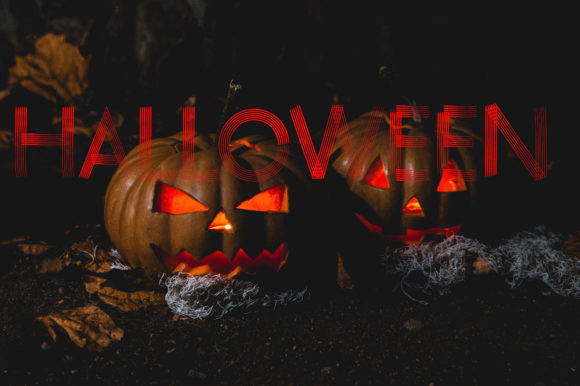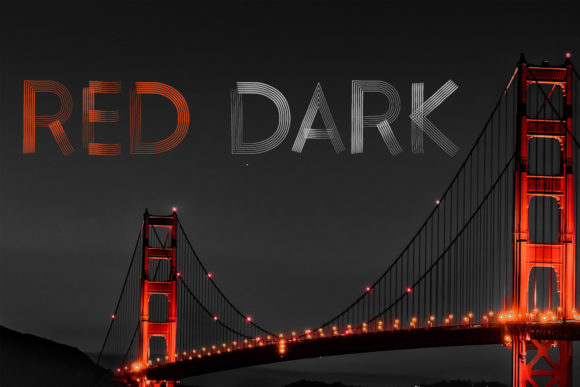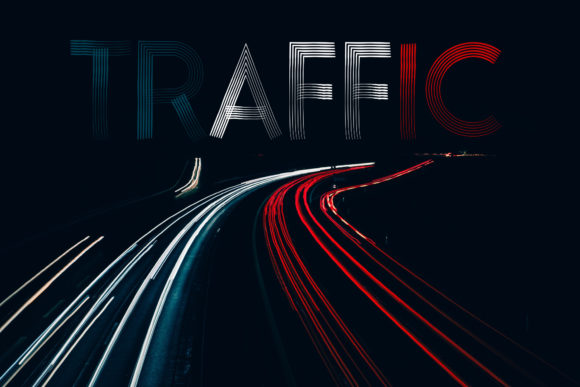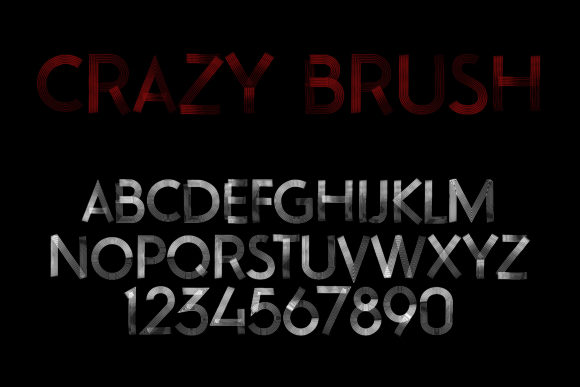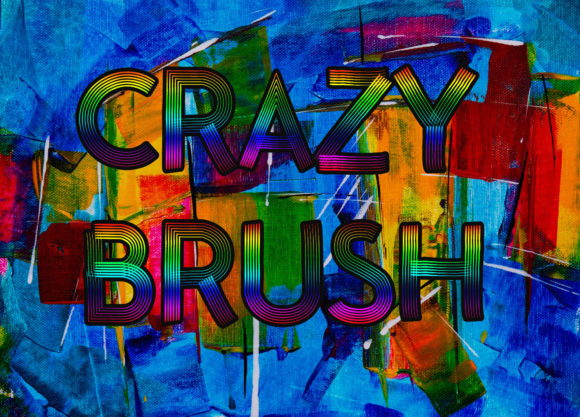
Crazy Brush Font: Unleash Your Creativity with this Bold and Modern Display Font
Are you tired of using the same old fonts in your designs? Look no further! Introducing Crazy Brush, a bold and incredibly interesting display font that’s sure to take your design ideas to the next level. With its minimalist and modern aesthetic, this font is perfect for designers and crafters looking to add a touch of excitement to their work.
What Makes Crazy Brush Font So Special?
Crazy Brush is a unique and eye-catching font that’s designed to make a statement. Its bold and expressive strokes are reminiscent of brush calligraphy, giving it a dynamic and artistic feel. The font’s minimalist and modern design makes it versatile and easy to use, perfect for a wide range of design projects.
Whether you’re working on a logo, poster, or social media graphic, Crazy Brush is sure to add a touch of personality and style to your design. The font’s clean lines and simple shapes make it easy to read and understand, while its bold and expressive strokes add a level of sophistication and elegance.
Key Features of Crazy Brush Font
• Bold and Expressive Strokes: Crazy Brush features bold and expressive strokes that give it a dynamic and artistic feel.
• Minimalist and Modern Design: The font’s minimalist and modern design makes it versatile and easy to use.
• Easy to Read and Understand: Crazy Brush has clean lines and simple shapes, making it easy to read and understand.
• Perfect for Display Text: This font is perfect for display text, such as headings, titles, and captions.
How to Use Crazy Brush Font in Your Designs
Crazy Brush is a versatile font that can be used in a wide range of design projects. Here are a few ideas to get you started:
• Logos and Branding: Use Crazy Brush to create a bold and eye-catching logo that’s sure to stand out.
• Posters and Flyers: Add a touch of personality and style to your posters and flyers with Crazy Brush.
• Social Media Graphics: Use Crazy Brush to create eye-catching social media graphics that are sure to grab attention.
• Packaging and Labels: Add a touch of elegance and sophistication to your packaging and labels with Crazy Brush.
Tips and Tricks for Getting the Most Out of Crazy Brush Font
Here are a few tips and tricks to help you get the most out of Crazy Brush:
• Experiment with Different Colors: Try pairing Crazy Brush with different colors to create a unique and eye-catching effect.
• Play with Font Sizes: Experiment with different font sizes to create visual interest and hierarchy.
• Combine with Other Fonts: Try pairing Crazy Brush with other fonts to create a unique and interesting combination.
Crazy Brush is a bold and incredibly interesting display font that’s sure to take your design ideas to the next level. With its minimalist and modern aesthetic, this font is perfect for designers and crafters looking to add a touch of excitement to their work. Whether you’re working on a logo, poster, or social media graphic, Crazy Brush is sure to add a touch of personality and style to your design.